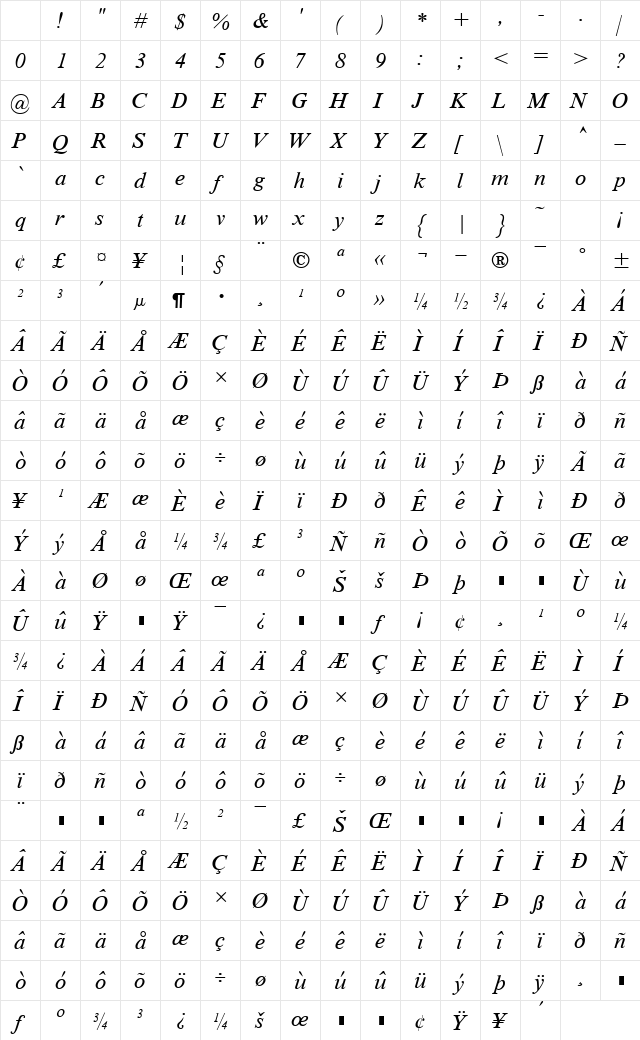
Complete Tms Italic glyph index. Displaying only characters natively supported by Tms Italic font.
Tms is a composed and adaptable typeface that performs quietly and consistently across a wide range of design contexts. The slanted form adds forward momentum and visual energy.
Pro Tip: Use Tms for emphasis, pull quotes, and subheadings where its slanted energy can add rhythm to the layout.